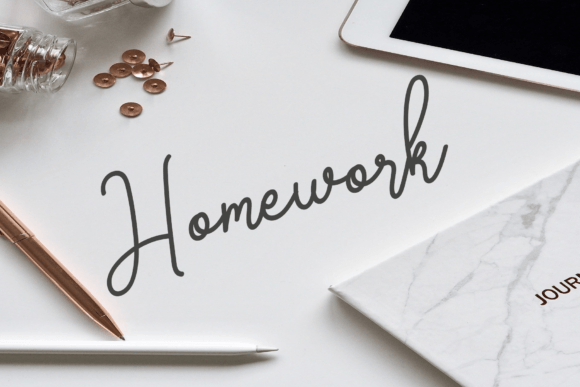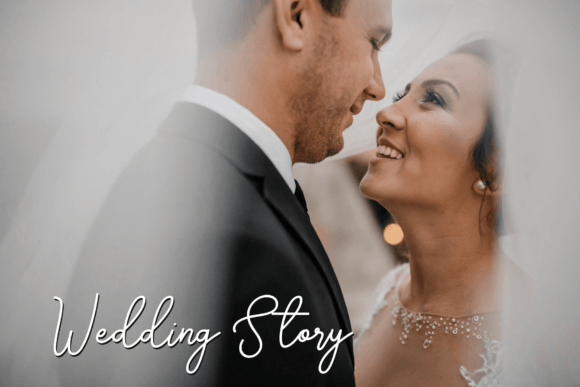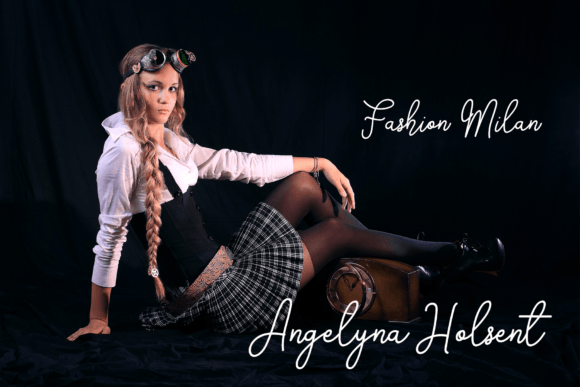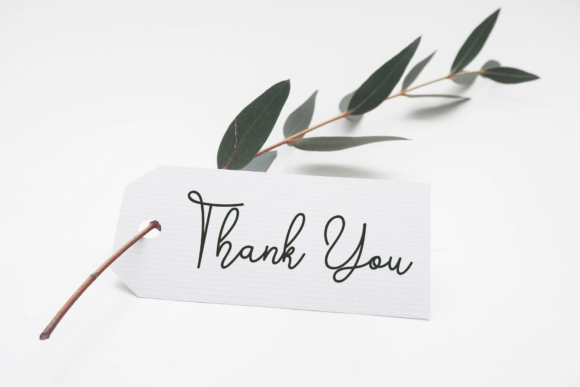
Fantastic Font: Elevate Your Creative Projects with Elegance and Magic
Are you a designer, crafter, or DIY enthusiast looking for a font that can add a touch of elegance and magic to your creative projects? Look no further than the Fantastic Font, a beautifully crafted script font that is sure to turn your ideas into stunning works of art. In this article, we’ll take a closer look at the Fantastic Font, its features, and how you can use it to elevate your creative projects.
What is Fantastic Font?
Fantastic Font is a magical script font that has been carefully created with a touch of elegance. Its unique and flowing design makes it perfect for a wide range of creative projects, from Instagram posts and stories to DIY crafts and calligraphy scripts. With its beautiful and intricate lettering, Fantastic Font is sure to add a touch of sophistication and whimsy to any design.
Key Features of Fantastic Font
- Elegant Design: Fantastic Font features a beautiful and elegant design that is perfect for adding a touch of sophistication to your creative projects.
- Magical Script: This font features a magical script that is sure to add a touch of whimsy and wonder to your designs.
- Versatile: Fantastic Font is versatile and can be used for a wide range of creative projects, from Instagram posts and stories to DIY crafts and calligraphy scripts.
How to Use Fantastic Font for Instagram
If you’re looking for a font to use for your Instagram posts and stories, Fantastic Font is a great choice. Here are a few ways you can use this font to elevate your Instagram game:
- Instagram Posts: Use Fantastic Font to add a touch of elegance and magic to your Instagram posts. You can use it to create beautiful quotes, captions, and stories.
- Instagram Stories: Fantastic Font is also perfect for Instagram stories. You can use it to create beautiful and eye-catching story graphics, quotes, and more.
- Branding: If you’re a business or brand looking to create a consistent visual identity, Fantastic Font can be used to create beautiful and elegant branding materials, such as logos, business cards, and more.
How to Use Fantastic Font for DIY Projects
Fantastic Font is also perfect for DIY enthusiasts and crafters. Here are a few ways you can use this font to elevate your DIY projects:
- Calligraphy Scripts: Use Fantastic Font to create beautiful calligraphy scripts for your DIY projects, such as wedding signs, party decorations, and more.
- Handmade Cards: Fantastic Font can be used to create beautiful and elegant handmade cards for special occasions, such as birthdays, weddings, and more.
- DIY Crafts: This font can be used to create beautiful and eye-catching DIY crafts, such as wood signs, wall art, and more.
Tips and Tricks for Using Fantastic Font
Here are a few tips and tricks for using Fantastic Font:
- Experiment with Different Colors: Fantastic Font looks great in a variety of colors, so don’t be afraid to experiment and find the perfect color for your design.
- Use it with Other Fonts: This font can be paired with other fonts to create a unique and eye-catching design.
- Pay Attention to Kerning: Make sure to pay attention to kerning when using Fantastic Font, as it can make a big difference in the overall look of your design.
In conclusion, Fantastic Font is a beautifully crafted script font that is perfect for designers, crafters, and DIY enthusiasts looking to add a touch of elegance and magic to their creative projects. With its elegant design, magical script, and versatility, Fantastic Font is sure to turn any creative idea into a true piece of art. Whether you’re looking for fonts for Instagram or calligraphy scripts for DIY projects, Fantastic Font is a great choice.